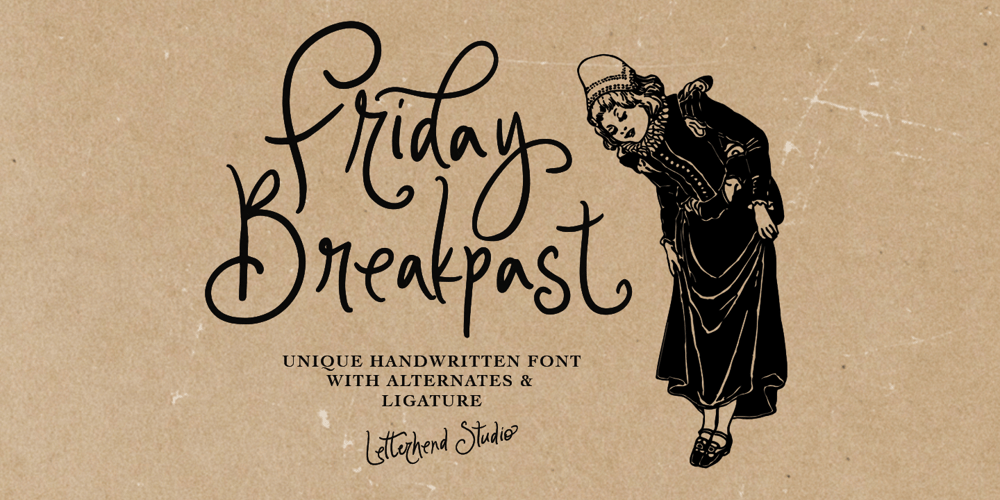
Friday Breakpast
Friday Breakpast font
Friday Breakpast Font Family was designed by Hendry Juanda and published by Letterhend. Friday Breakpast contains 1 styles and family package options. Friday Breakpast is a delicately crafted handwriting typeface that exudes fresh unique and gentle charm. This font features exquisite ligatures and classic alternates,include coquette ribbon in font glyph.Ideal for adding a serene and refined touch to invitations, luxury packaging, romantic novels, greeting cards, and any project that desires a soft, sophisticated look. Let Friday Breakpast sprinkle a bit of morning magic on your designs.Features : Uppercase & lowercase Numbers and punctuation Multilingual PUA encoded